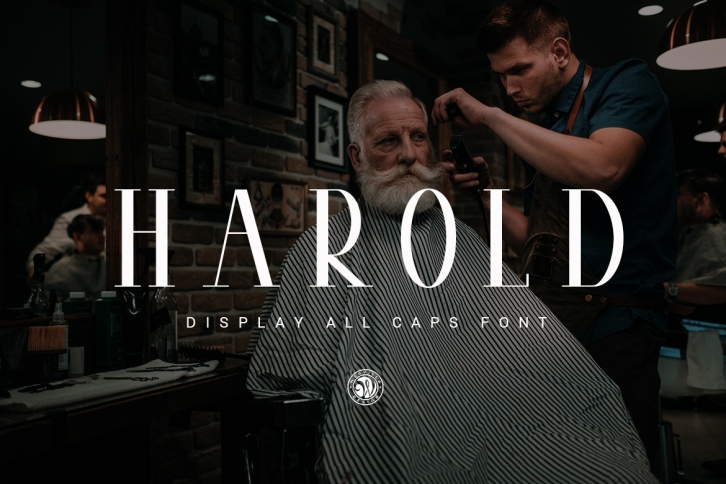
Harold is a trendy and unique font with an authentic style. It was designed by Webvilla and it's a great choice for creative people who need such a font. It was released on October 18, 2017 and the file size is 21.65 MB. Harold will add an organic vibe to any design idea!